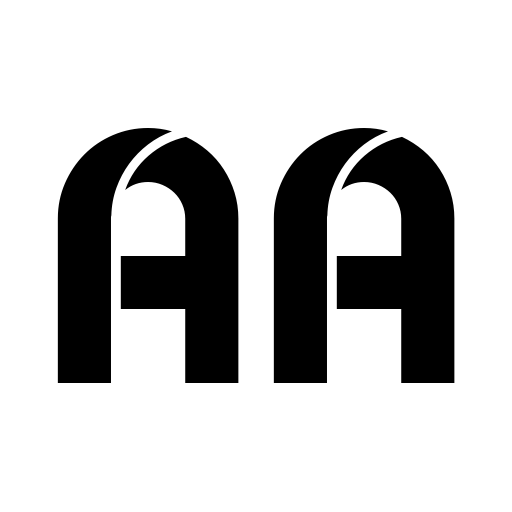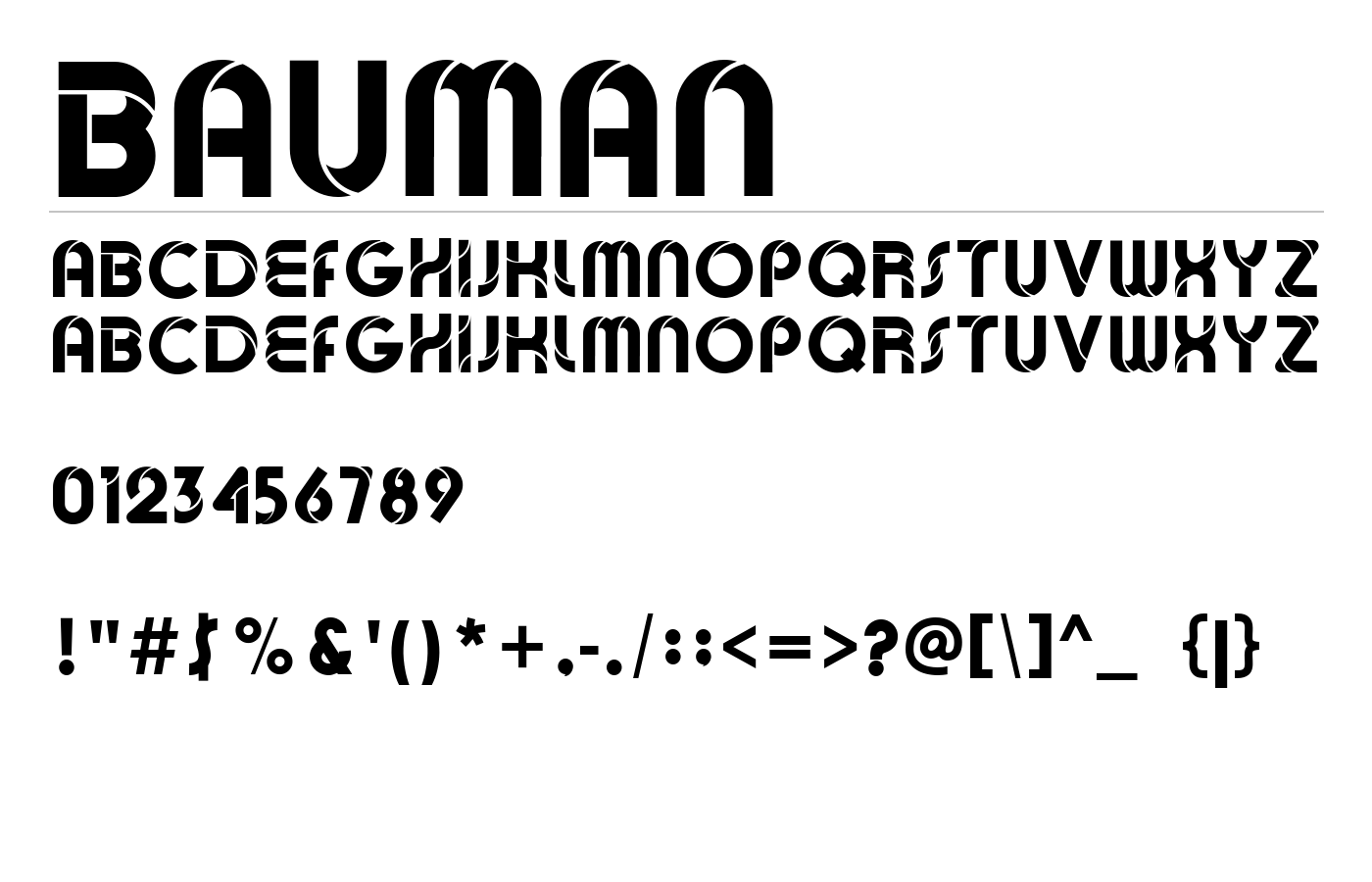
Bauman is a bold, geometric sans serif font with a striking Art Deco influence, characterized by its high contrast between solid black shapes and sharp cut-out details. Its condensed letterforms and unique angular accents give it a modern, stylish feel that works best in headlines, logos, or branding where a strong, decorative impact is desired. This font is perfect for projects aiming to convey sophistication and contemporary elegance with a vintage twist.
Bauman Font